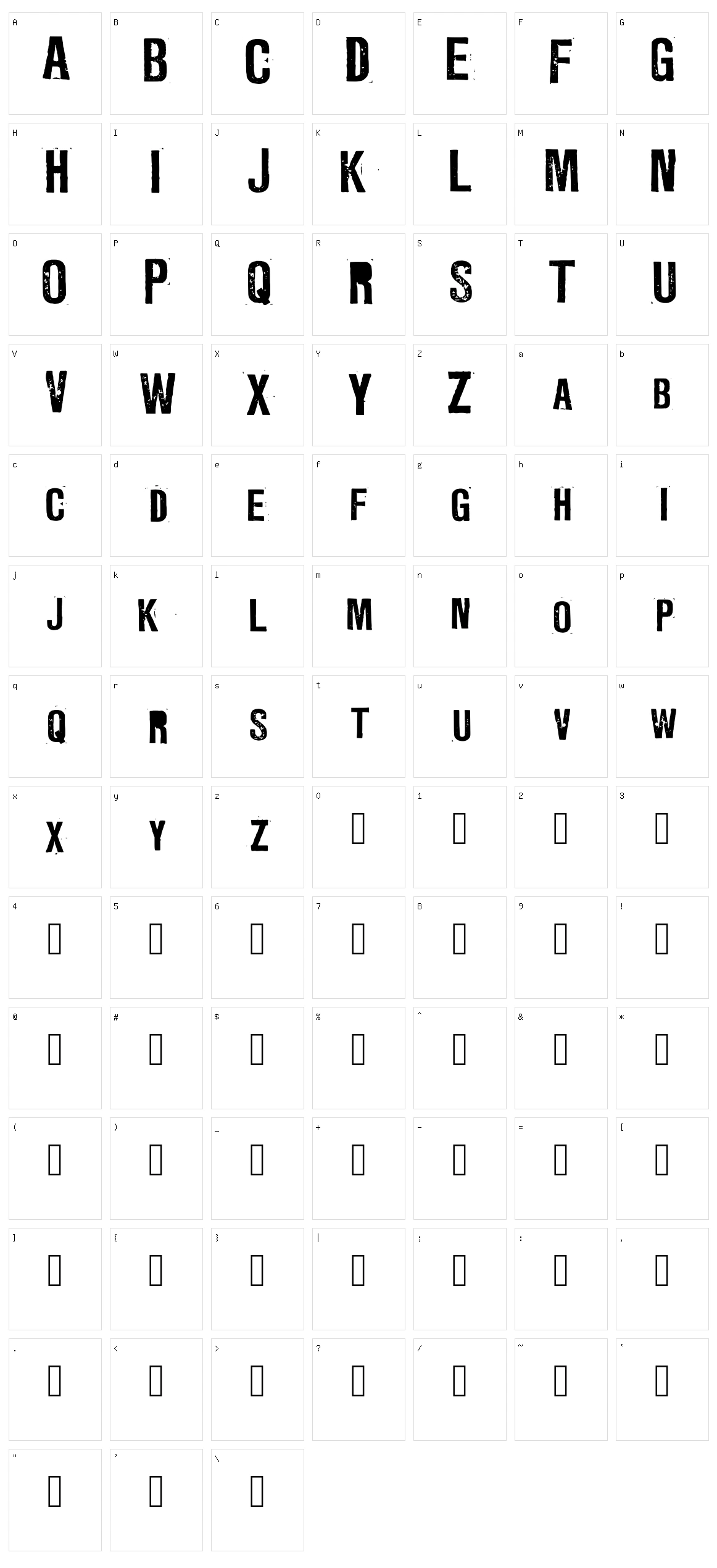
The free font Ministry Of Fonts is carefully designed by Chrissie Sanders, showcasing a thoughtful balance of creativity and usability and falls under the Destroy font style. When you download the ZIP file, it contains only 48.66 KB of font files, making it lightweight and quick to download. Please review the license details below to understand permitted usage and distribution rights. If license information is not available, we recommend using this font for personal projects only or contacting the author directly for commercial usage permissions.